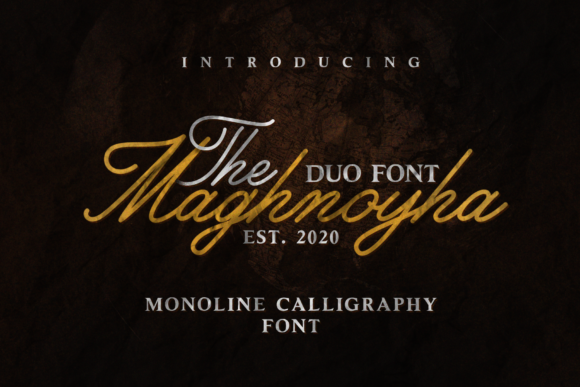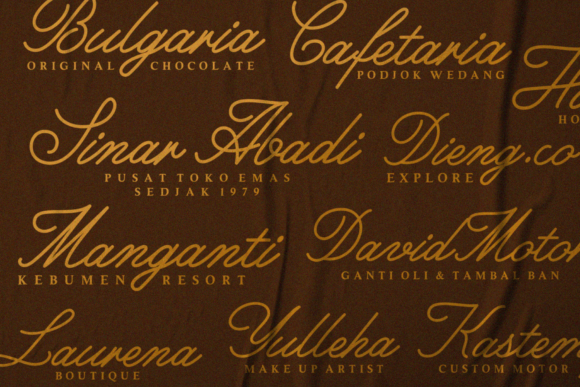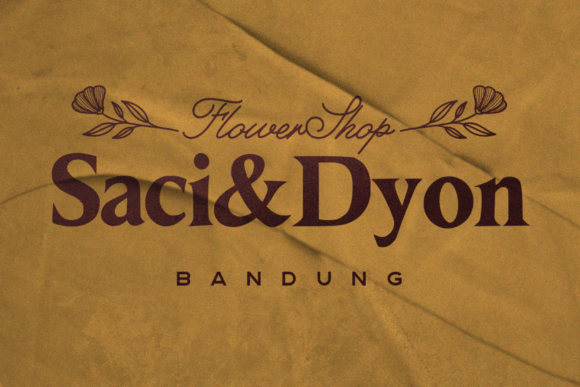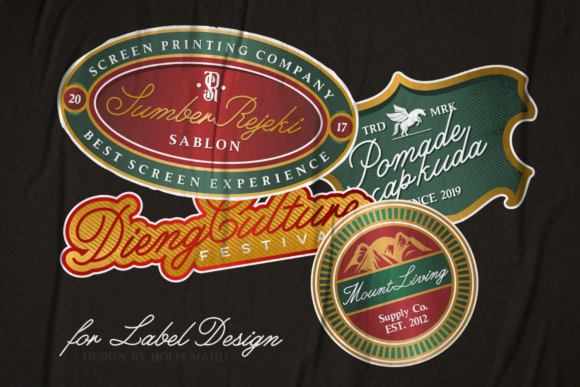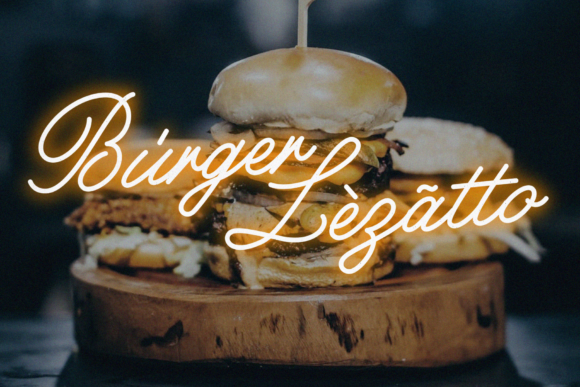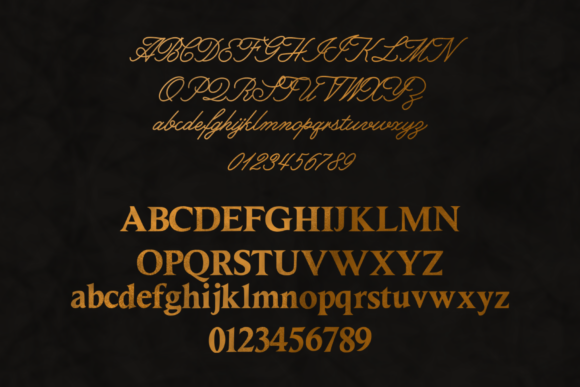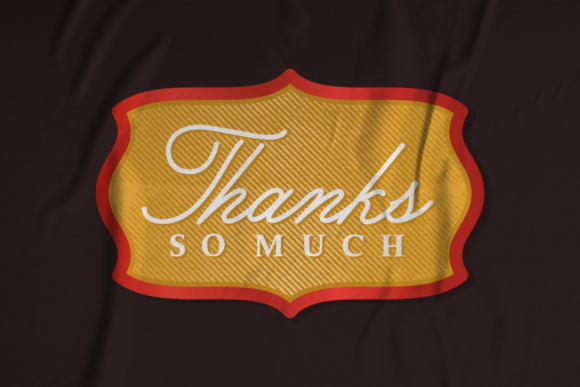
Maghnoyha Duo Font
About Maghnoyha Duo Font
Maghnoyhais a gorgeous font duo combining an authentic script and an elegant serif font. Combine them and achieve stunning results.